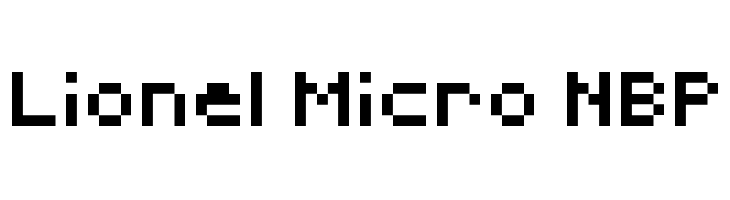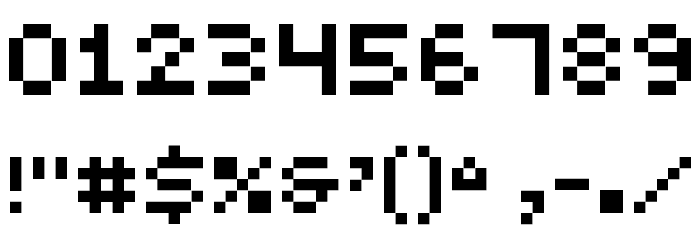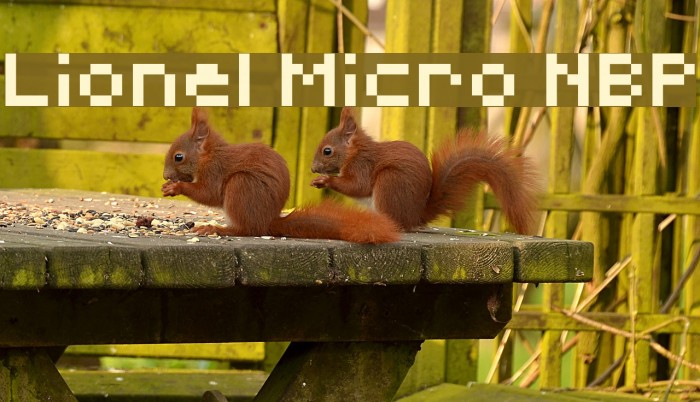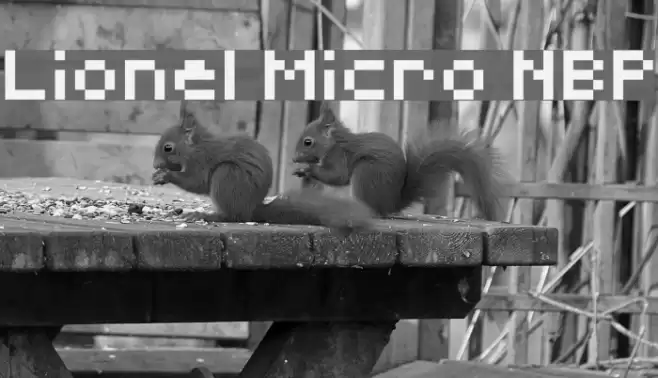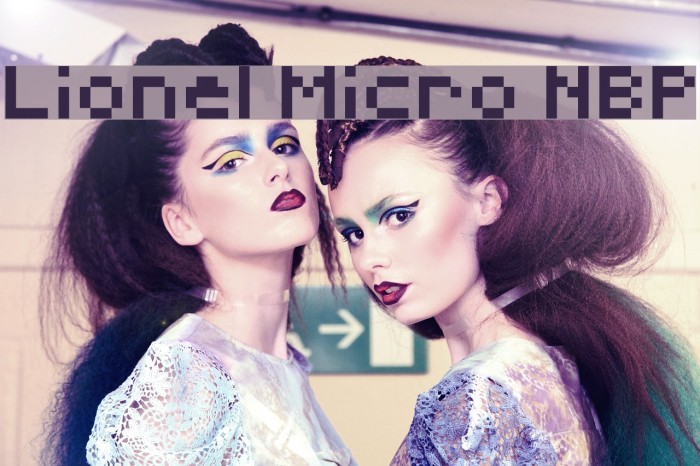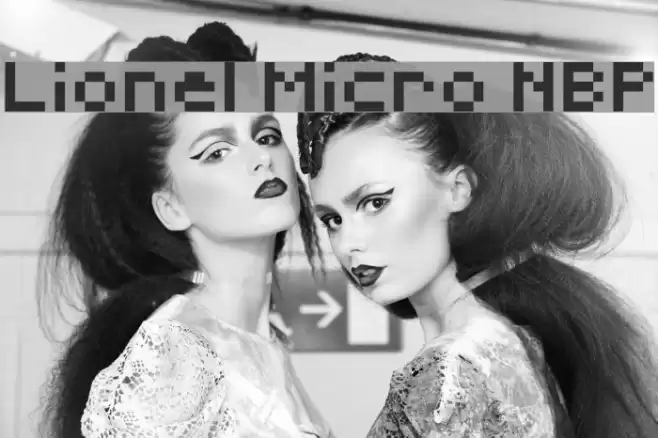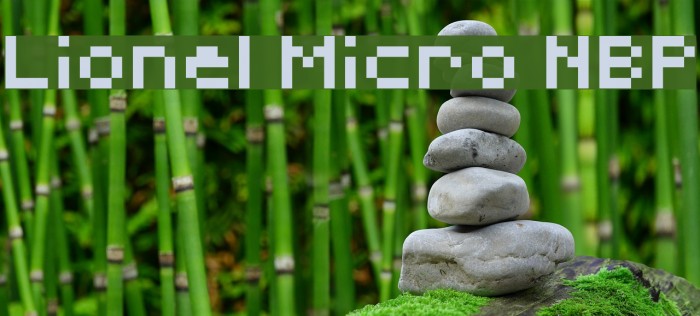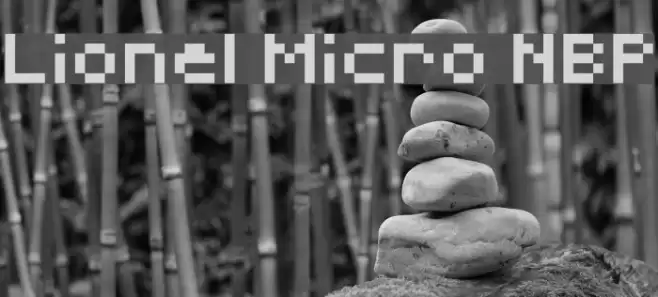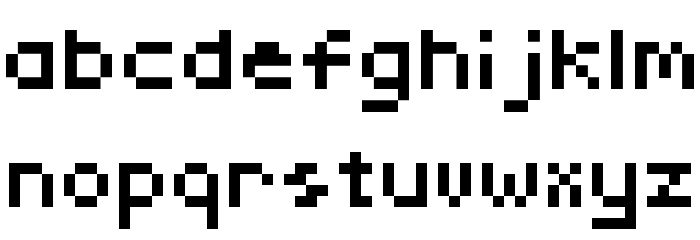
Lionel Micro NBP Font
Lionel Micro NBP Description
This font features a pixelated, blocky design reminiscent of early digital displays and retro video games. Each character is constructed with a grid-like precision, giving it a distinctly digital and geometric appearance. The uppercase and lowercase letters maintain a uniform height, contributing to a cohesive and structured look. The numerals and special characters are equally bold and clear, ensuring readability even at smaller sizes. This style is ideal for projects that aim to evoke a sense of nostalgia or a digital, tech-inspired aesthetic.
| Overall Style | Retro, Digital |
| Use Case | Headlines, Logos, Digital displays |
| Proposed Projects | Ideal for video game graphics, tech-themed posters, retro digital displays, and pixel art projects. |